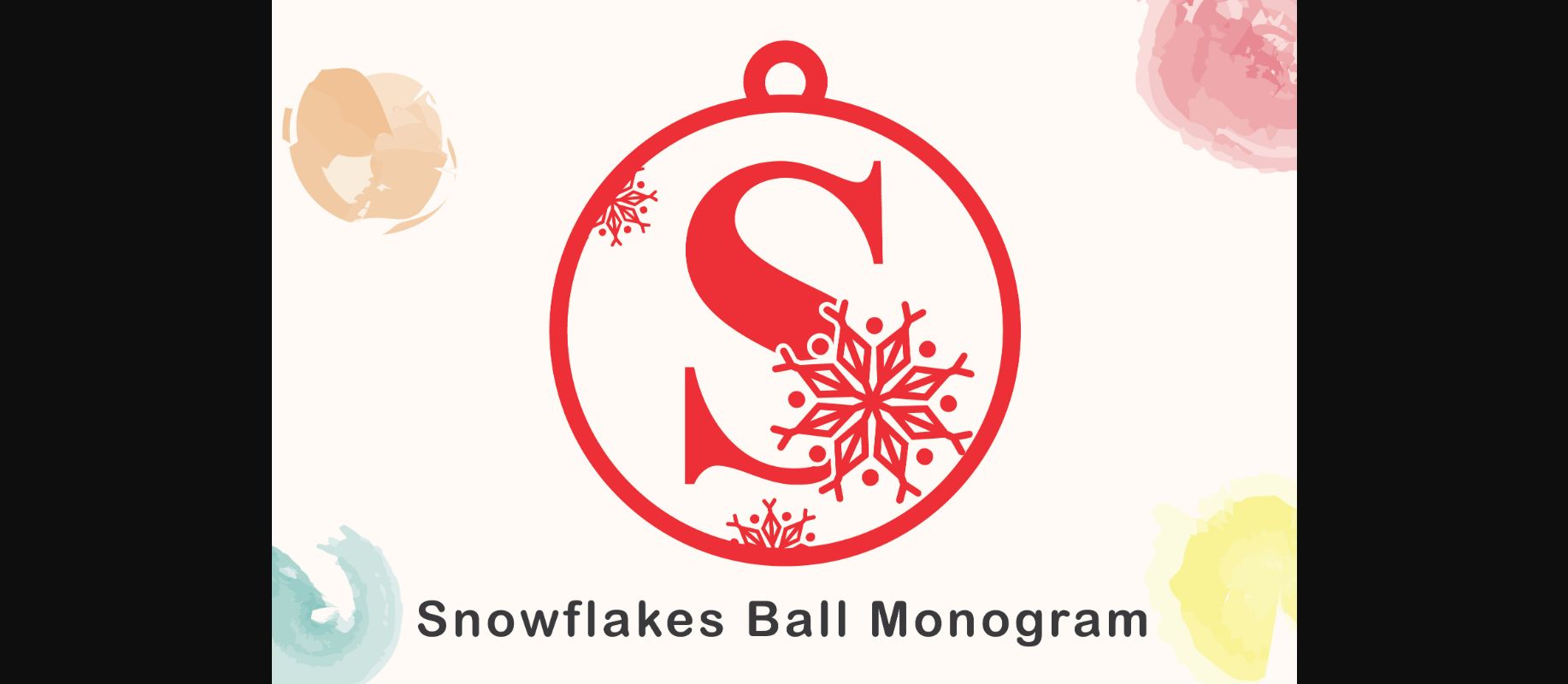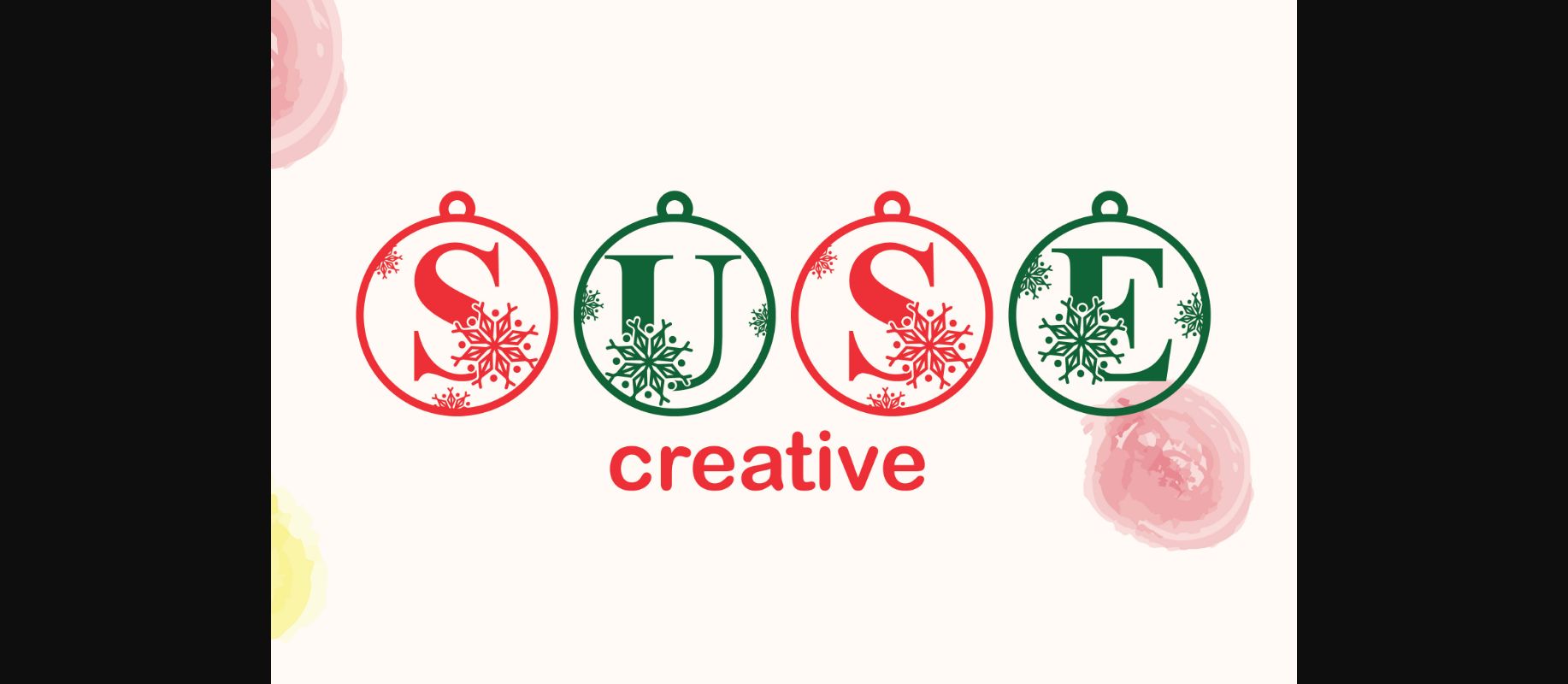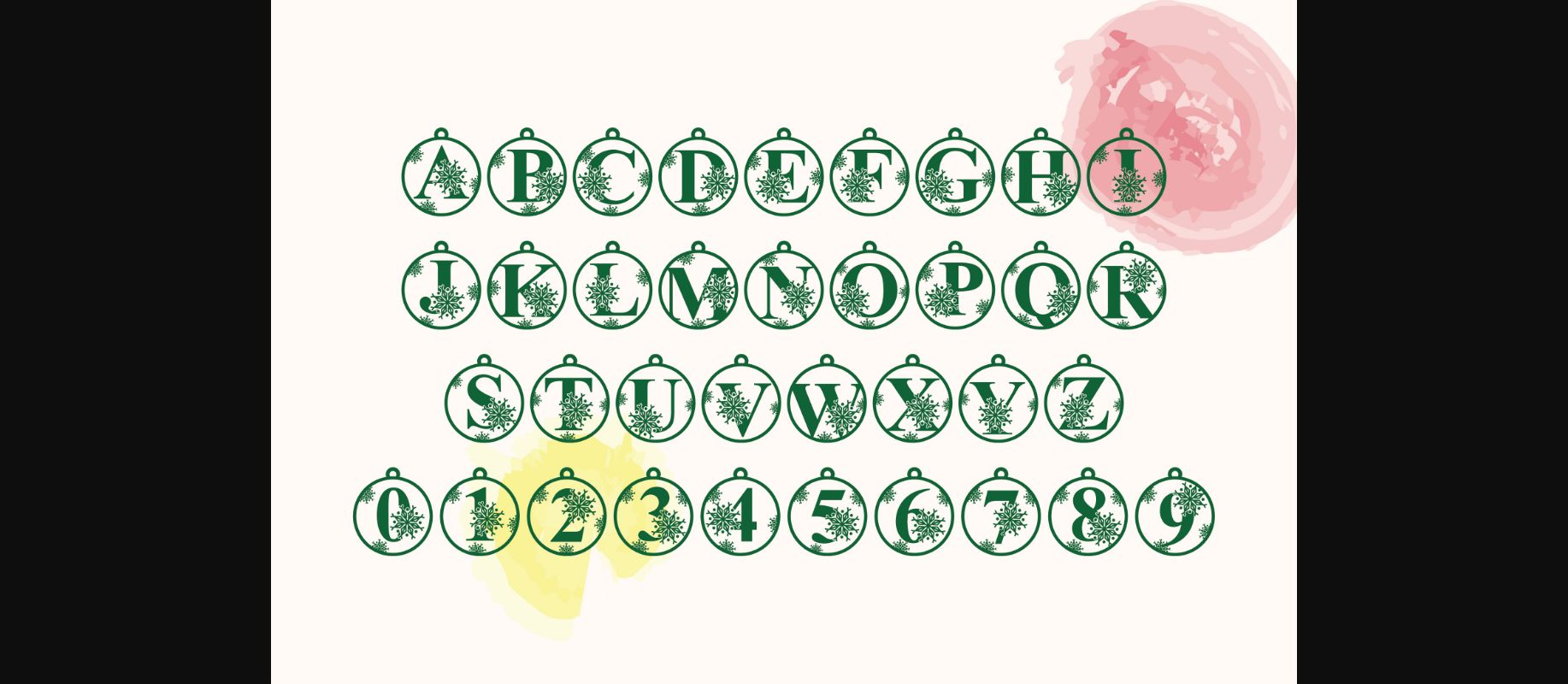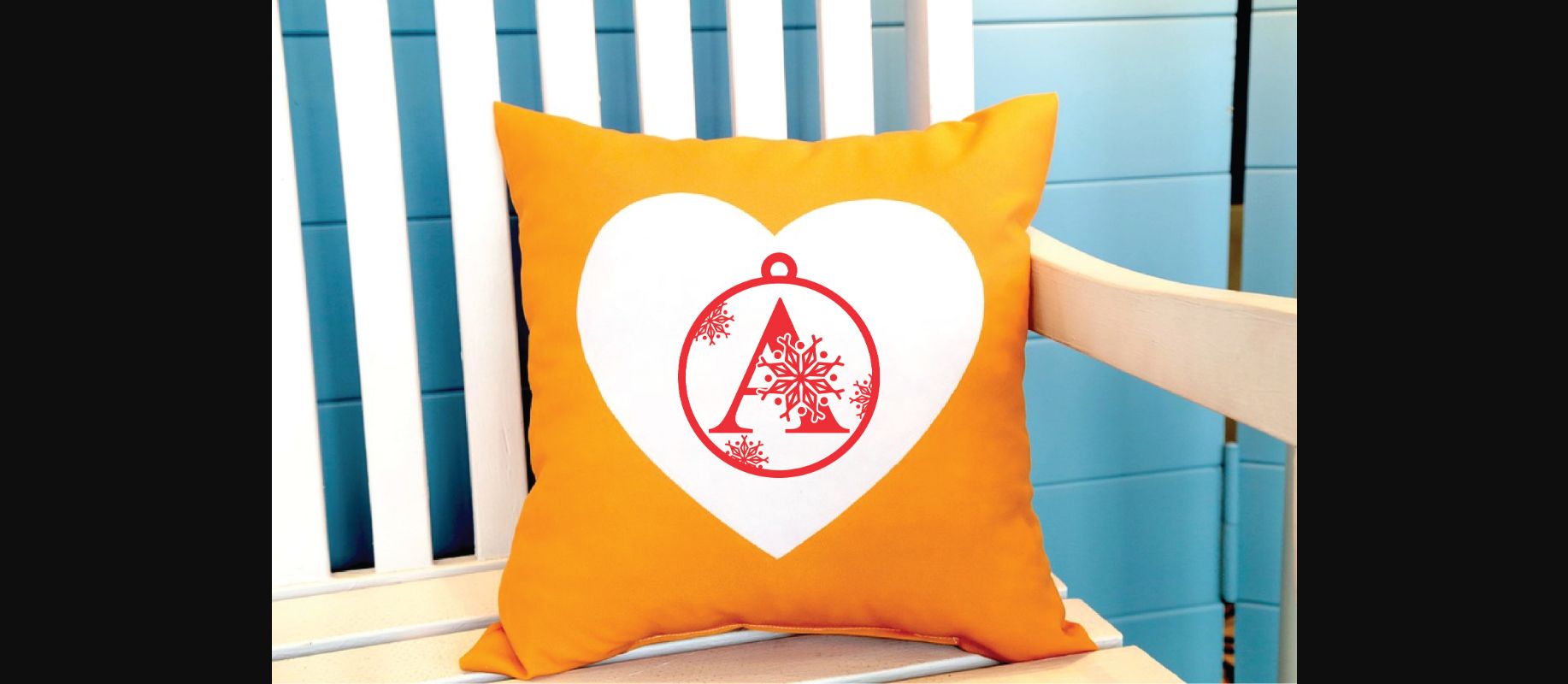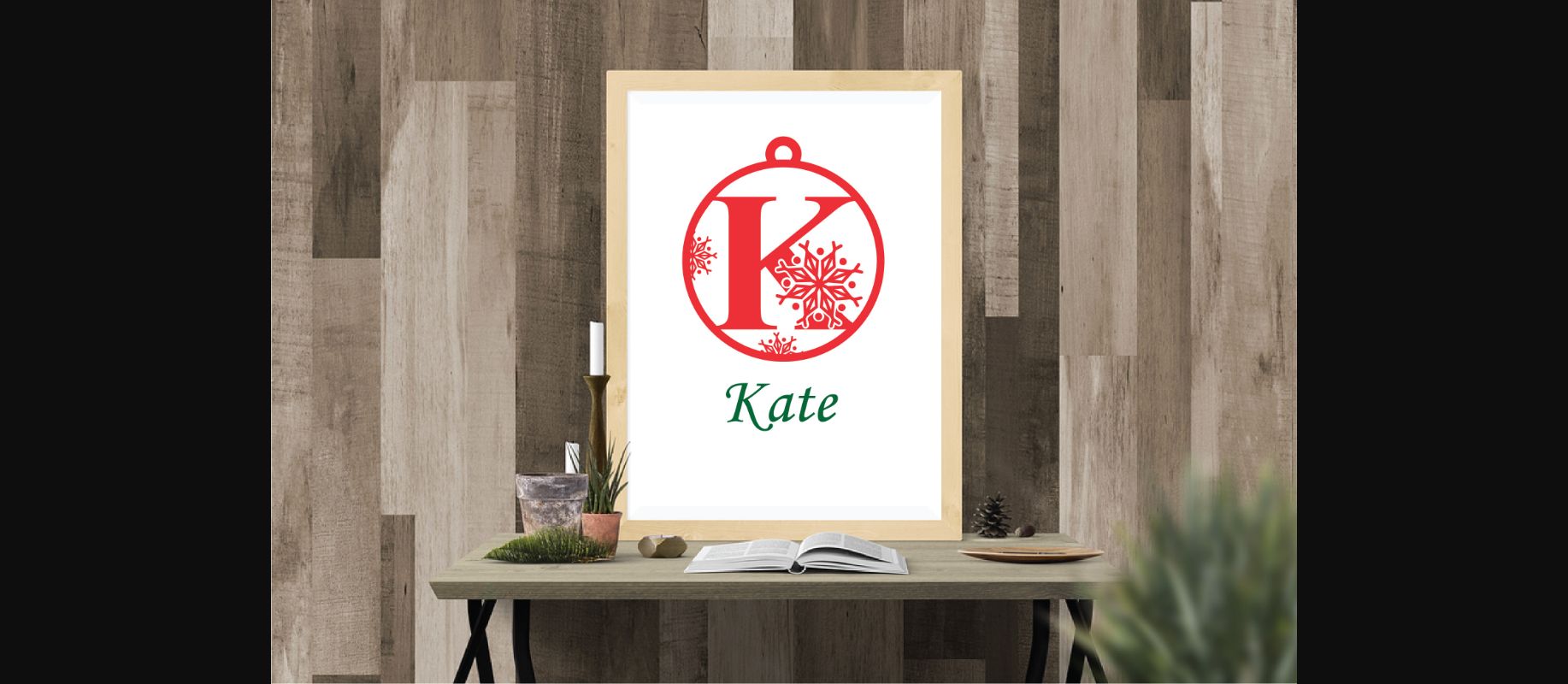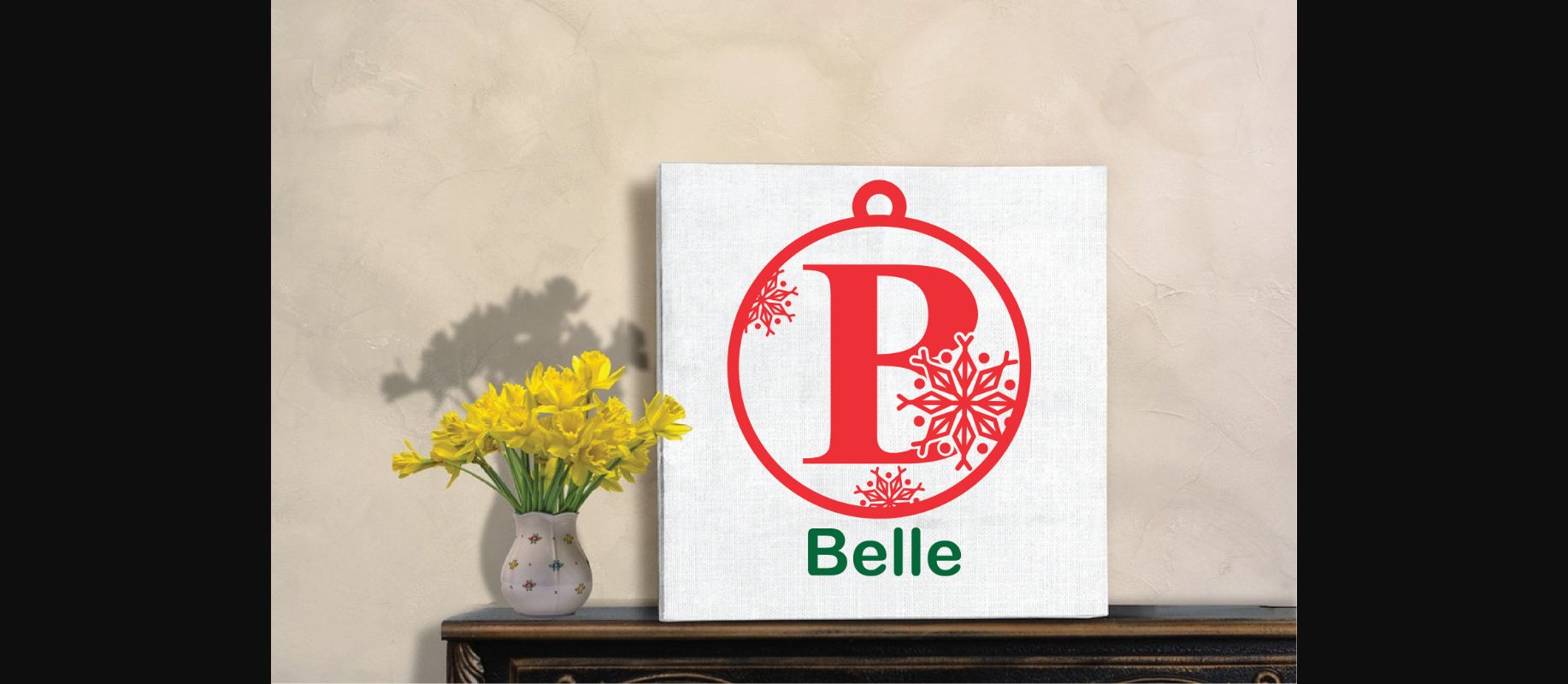
About Snowflakes Ball Monogram Font
Snowflakes Ball Monogram is a cute monogram font.
This monogram font is ideal for crafting, branding, and decorate your any project.
It is a sweet decorative font, featuring lovely snowflakes ornaments.
Fall in love with its authentic feel and use it to create beautiful stationary art, eye-catching social media posts, and cute greeting cards.
This font is perfect for Christmas designs, shirts, crafts, farmhouse decor, SVG designs, craft projects, Holiday designs, and more.
This monogram font is ideal for crafting, branding, and decorate your any project.
It is a sweet decorative font, featuring lovely snowflakes ornaments.
Fall in love with its authentic feel and use it to create beautiful stationary art, eye-catching social media posts, and cute greeting cards.
This font is perfect for Christmas designs, shirts, crafts, farmhouse decor, SVG designs, craft projects, Holiday designs, and more.